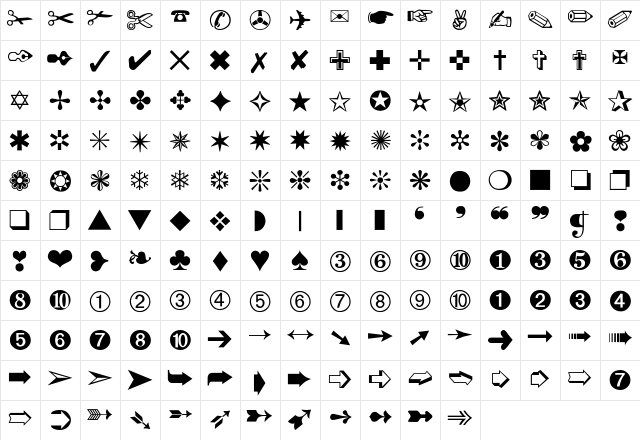
Great Dings-Thin Regular
Design Context for Great Dings-Thin Typeface
Great Dings-Thin is a composed and adaptable typeface that performs quietly and consistently across a wide range of design contexts. The delicate stroke weight brings airiness and refinement to layouts.